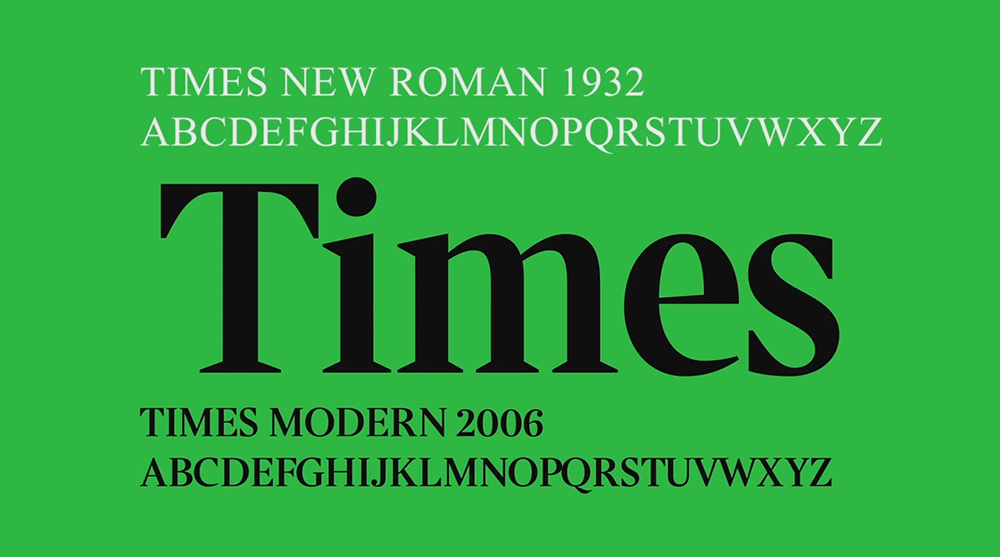
Video Series discovers how designers feel about the most sophisticated typeface
Unquiet video series explore how significant designers feel about the most recognizable font ever, Times New Roman. Unique confessions and statements like “Boring, Default, Open, Classic...” give to the worldwide famous typeface a more-like-celebrity twist, gathering together some historical information which explain a lot. Get to know all the sophisticated wisdom hidden behind this classic typeface here: